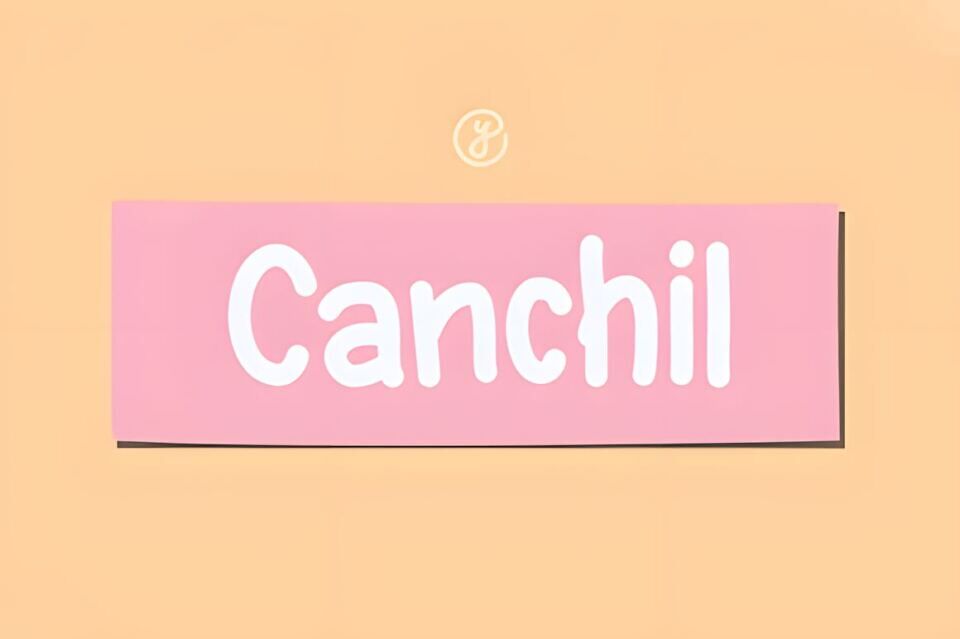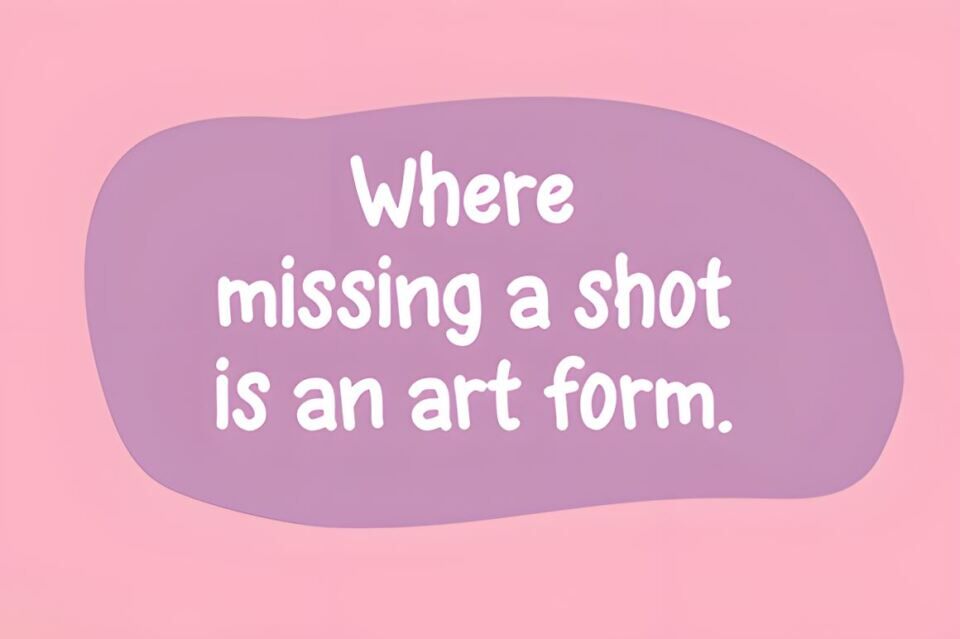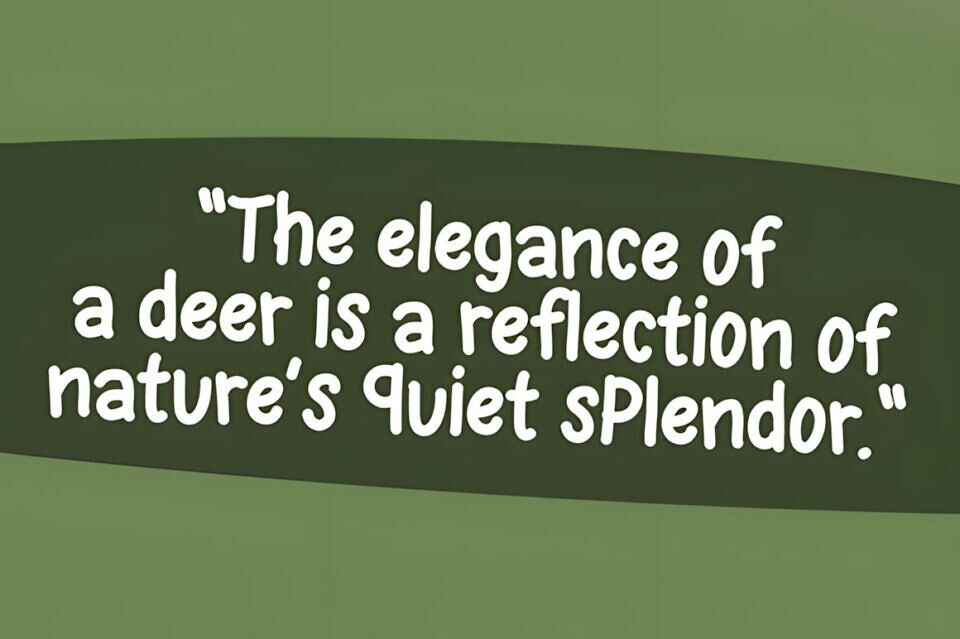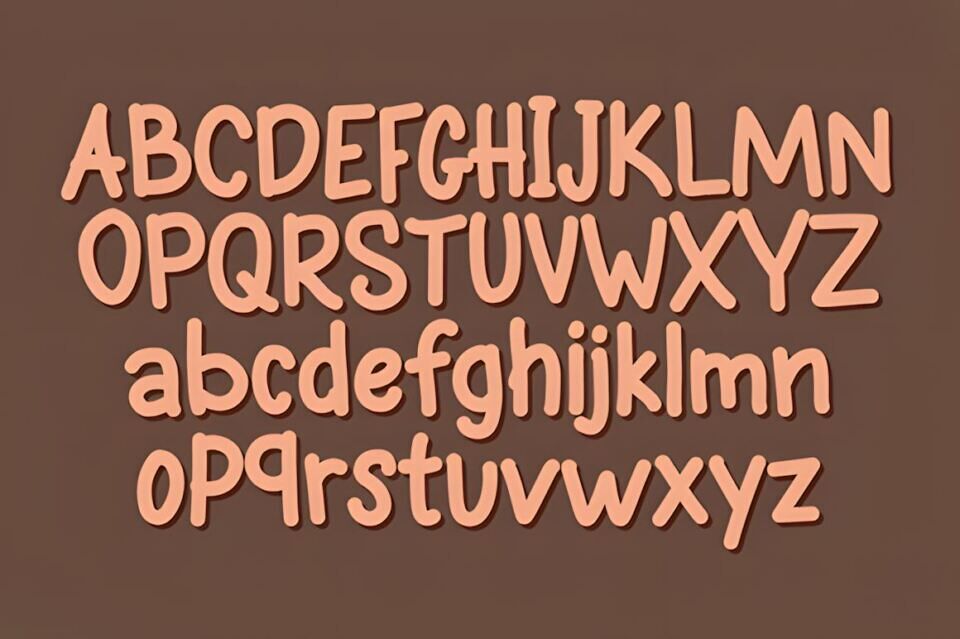
Canchil Font is a unique monoline handwriting typeface inspired by the cleverness, agility, and charm of the mouse-deer – the shy yet captivating creature from folklore. With its simple yet enchanting design, Canchil Font brings a modern touch with organic, flowing strokes that mimic the light, effortless movements of a mouse-deer in the wild.
The name “Canchil” can also be an acronym for Can Chill , representing a laid-back yet stylish lifestyle. This font is perfect for those looking to add warmth, friendliness, and a playful vibe to their creative projects, whether it’s for branding, illustrations, inspirational quotes, or social media designs.
Ideal Usage:
- Branding for lifestyle, fashion, or food/beverage products.
- Posters, greeting cards, or invitations with a casual theme.
- Motivational quotes or Instagram captions that aim for a personal touch.
- Educational projects or children’s books with nature-inspired elements.